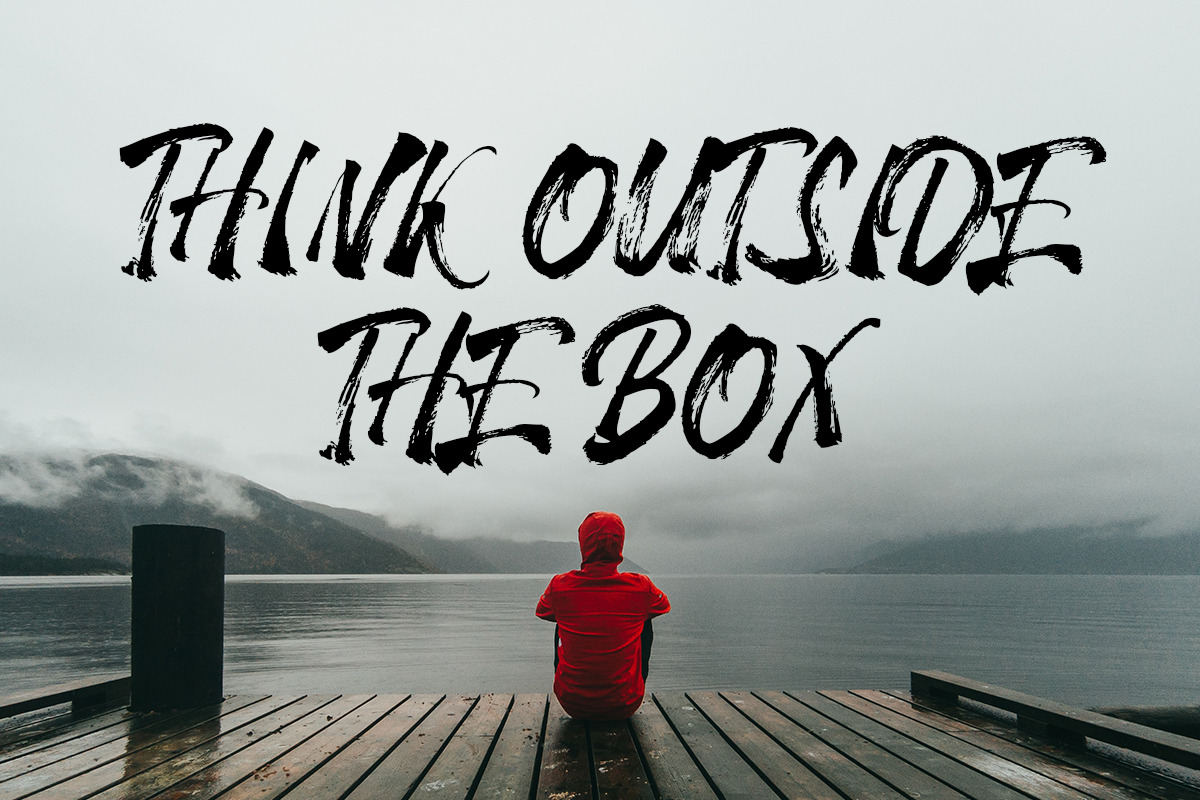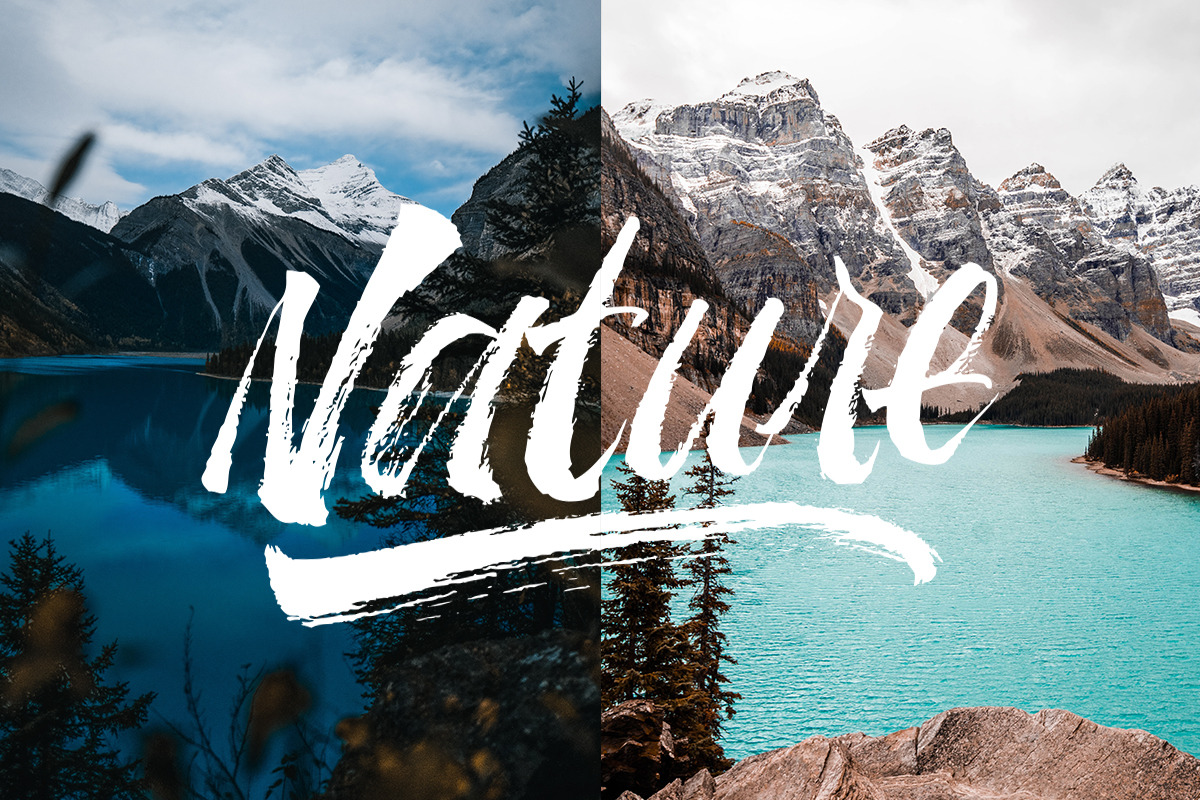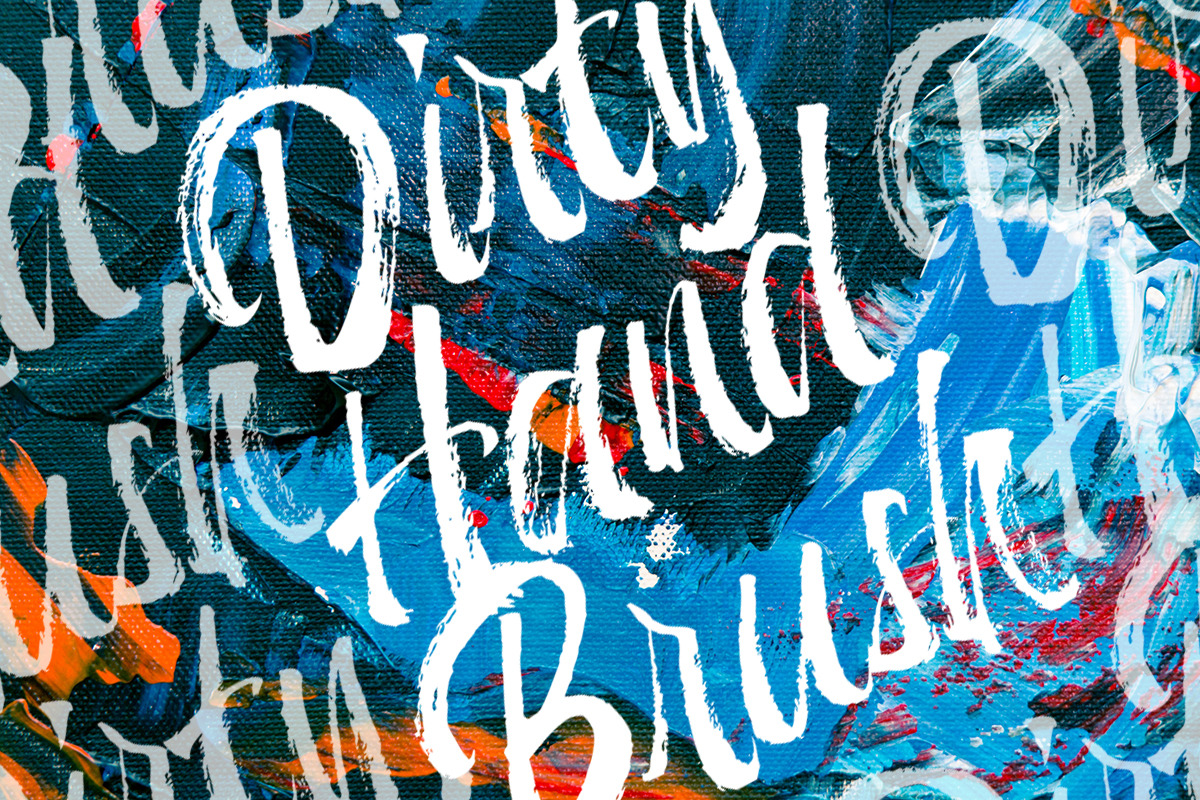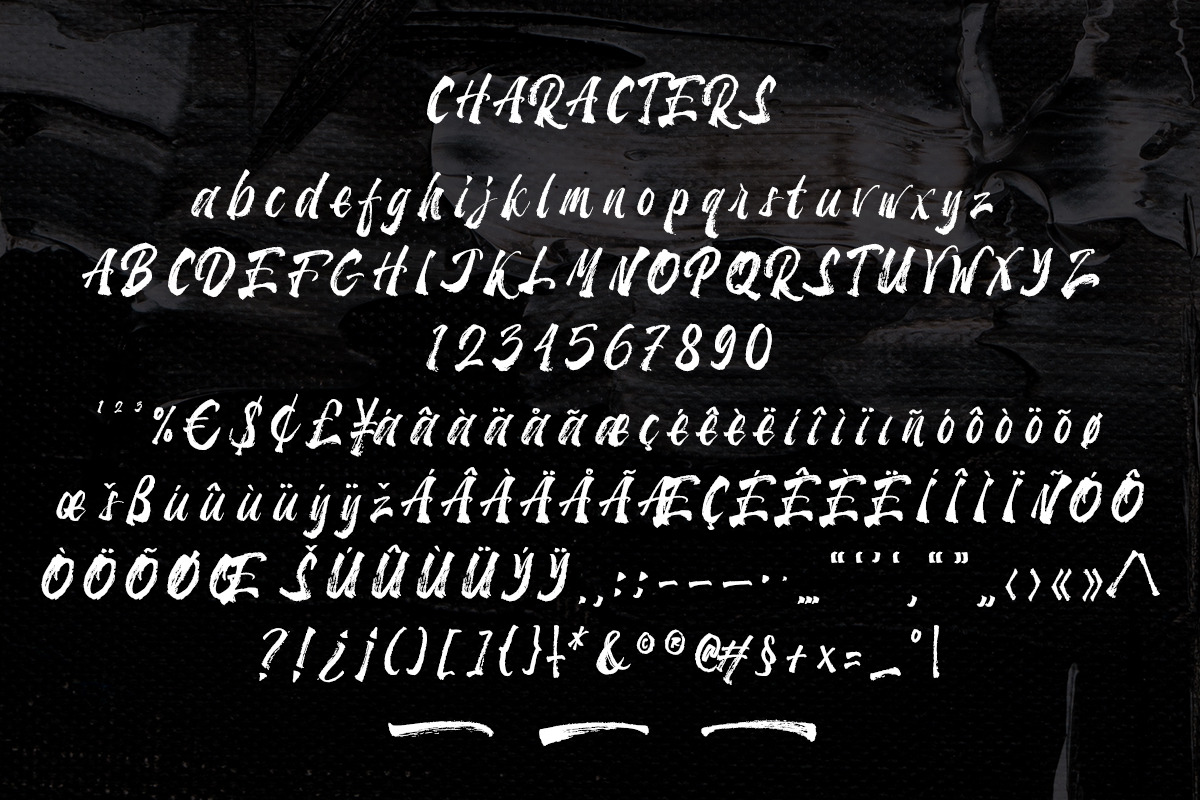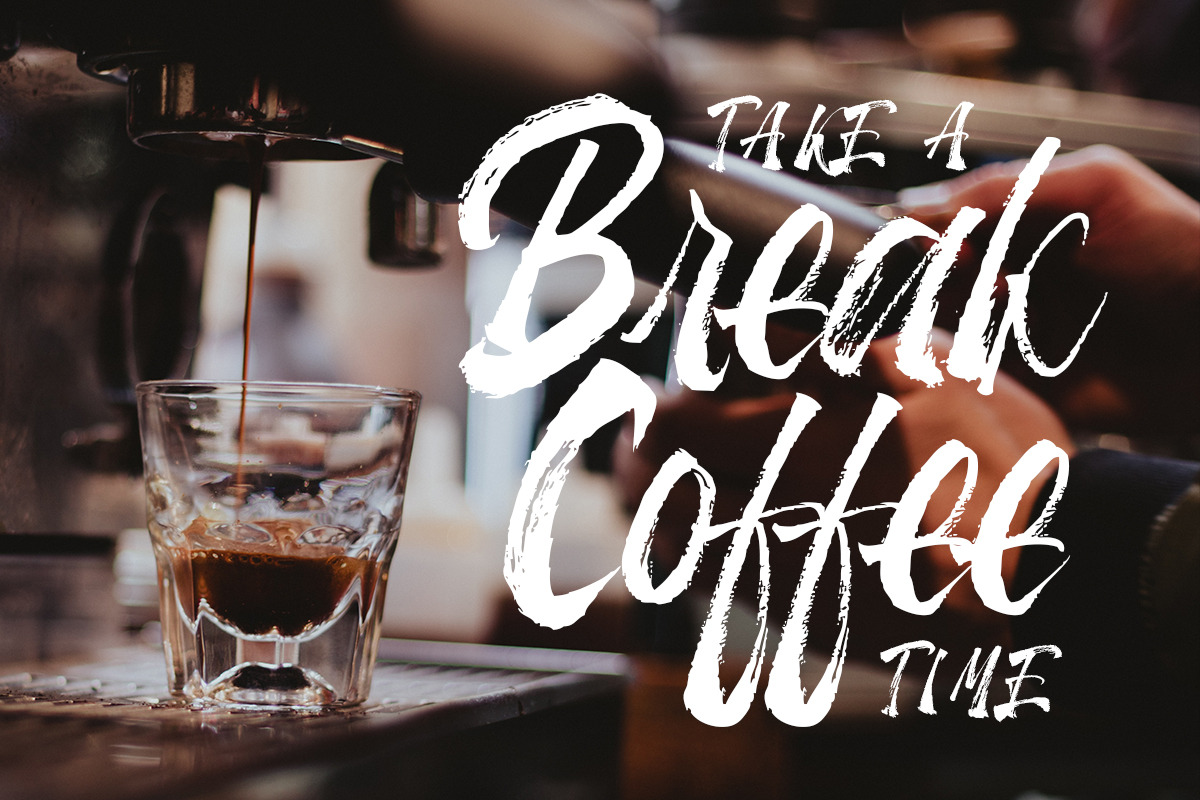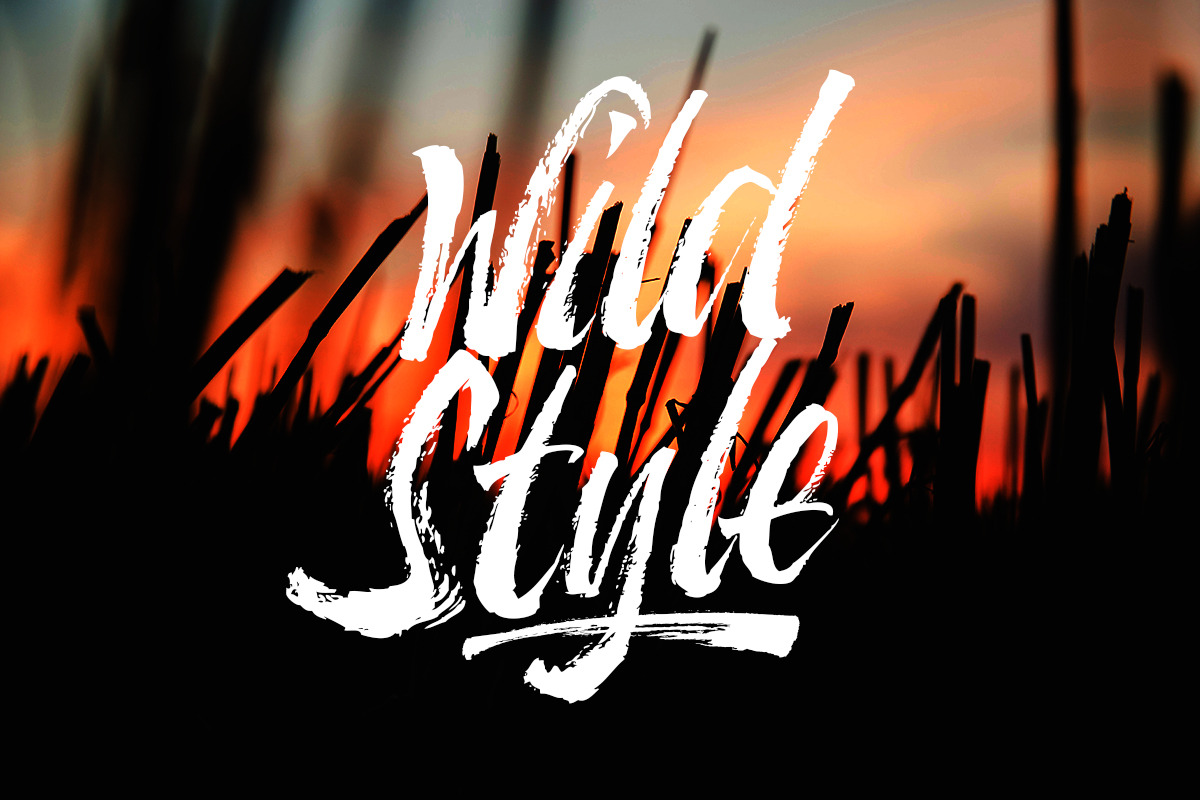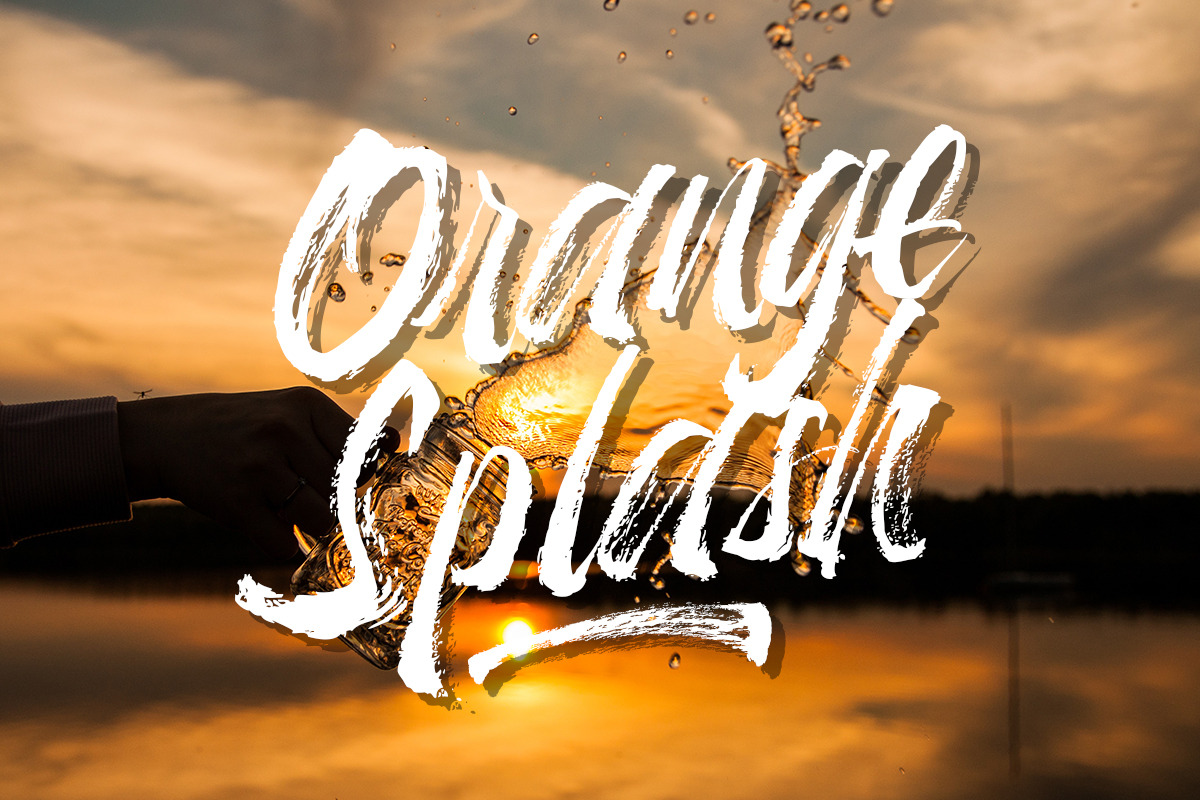
Hardcore | Hand Brush Font
- Hardcore is a hand brush font includes uppercase and lowercase letters, numerals, a large range of punctuation, swash and ligatures.
Hardcore | Hand Brush Font by MuntabArt fits naturally into Branding, posters, packaging, typography.